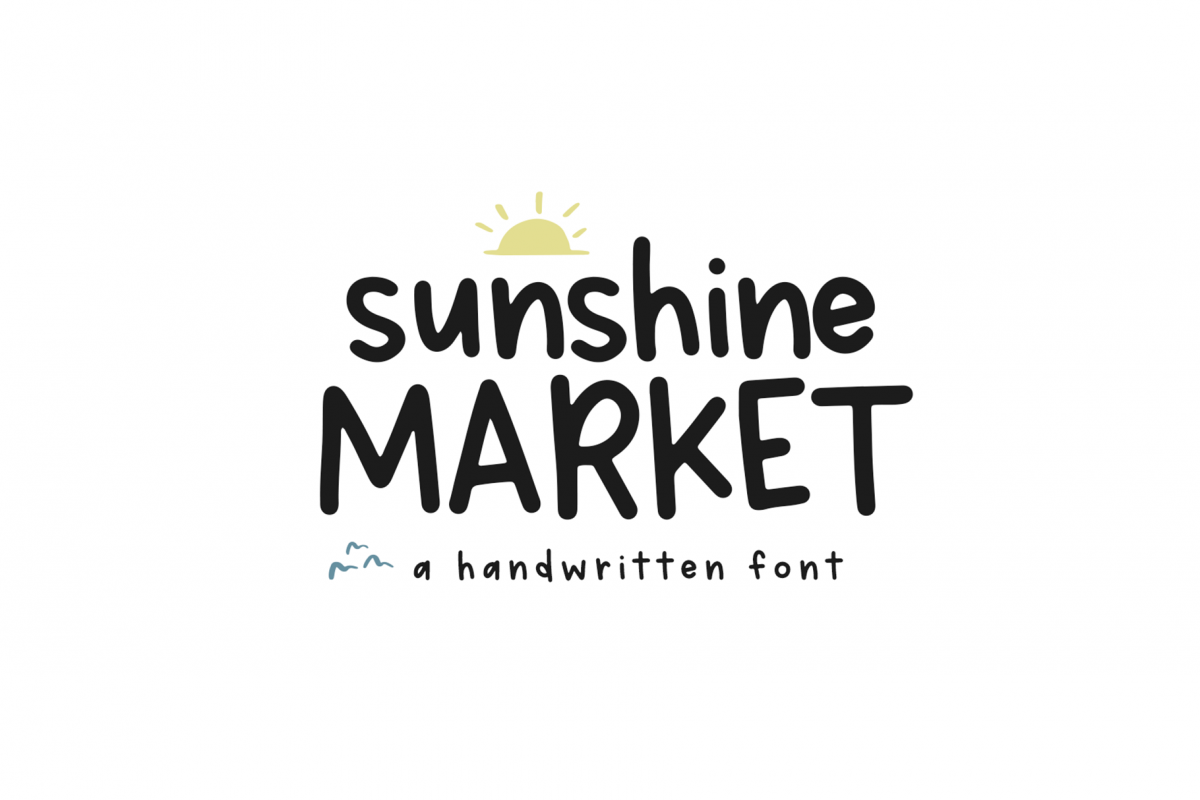
Sunshine Market - A Handwritten Font
Sunshine Market is a fun handwritten font.  It is printed and easy to read - big or small - making it perfect for your branding needs!